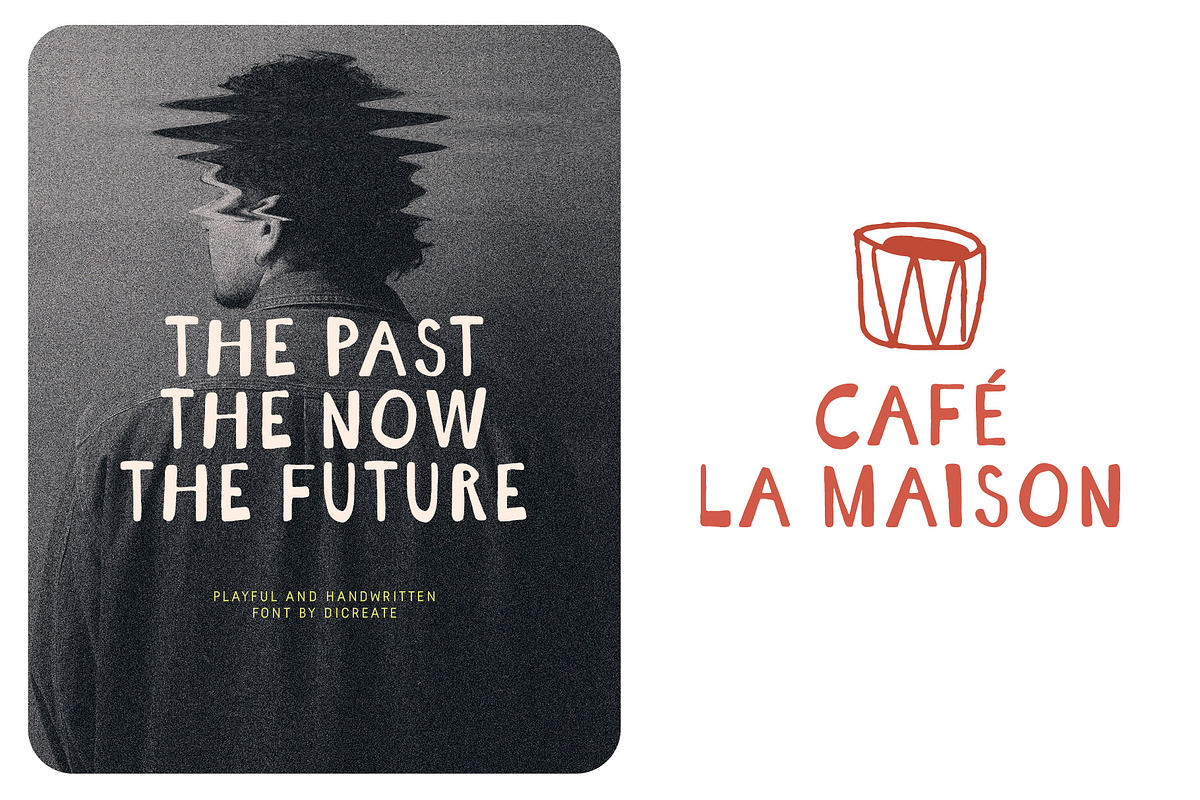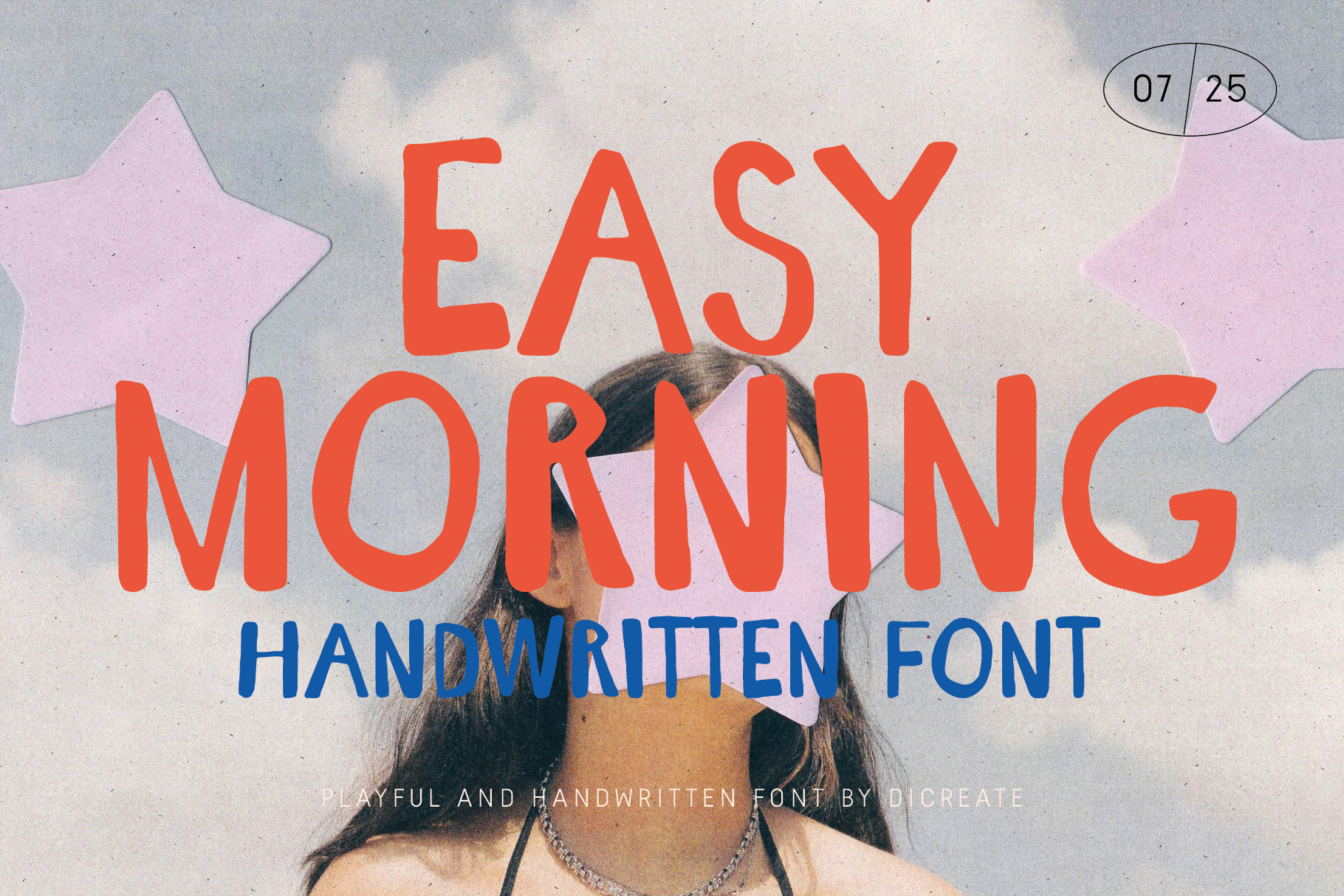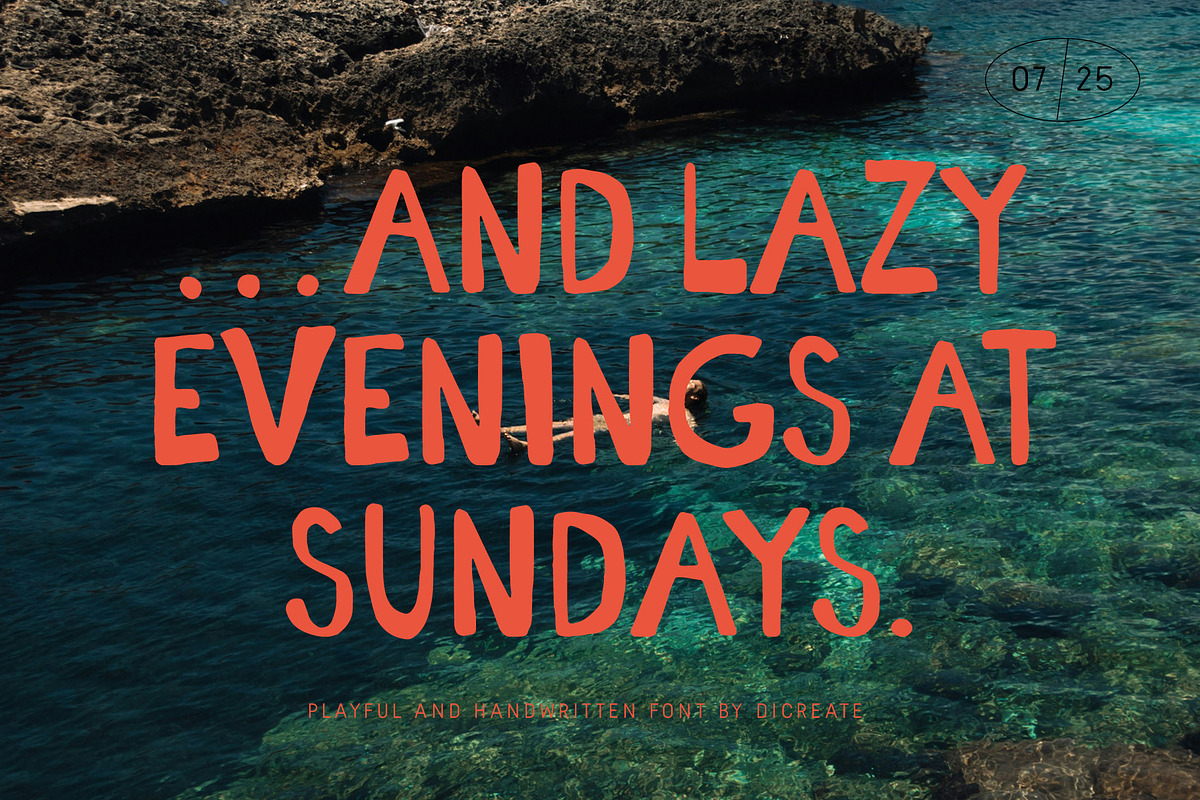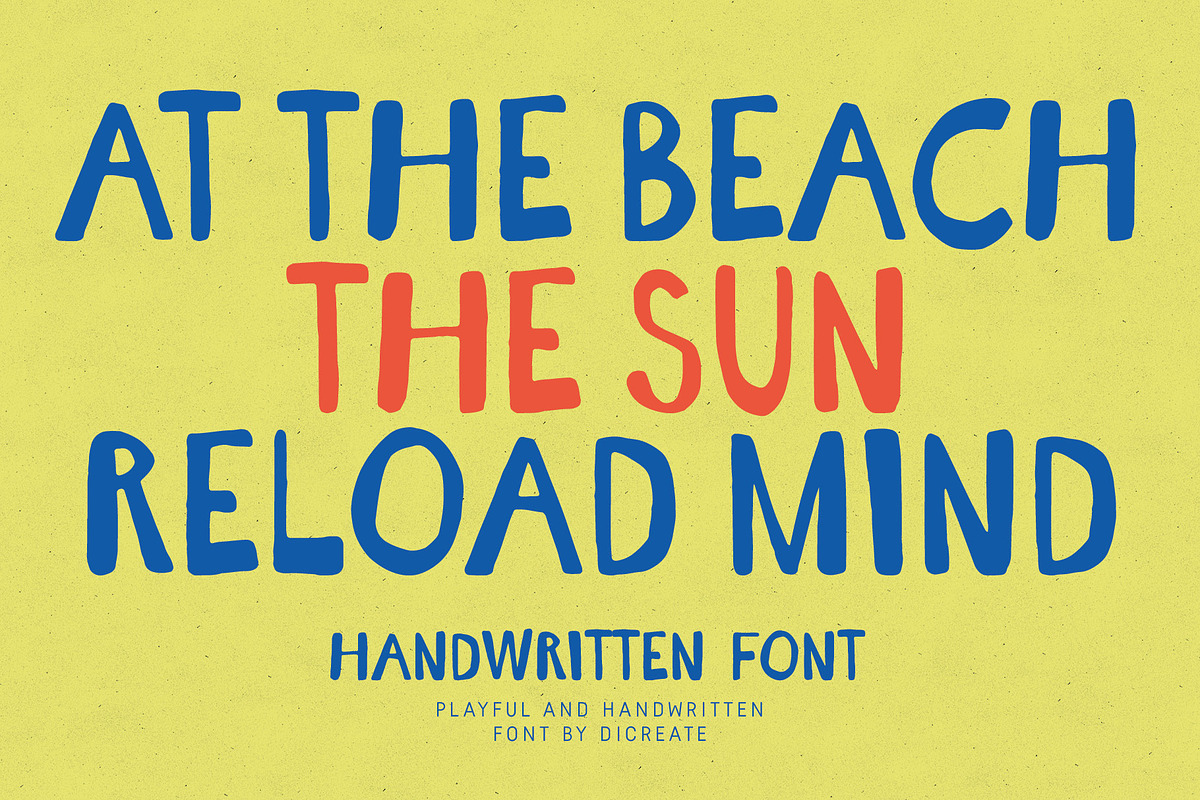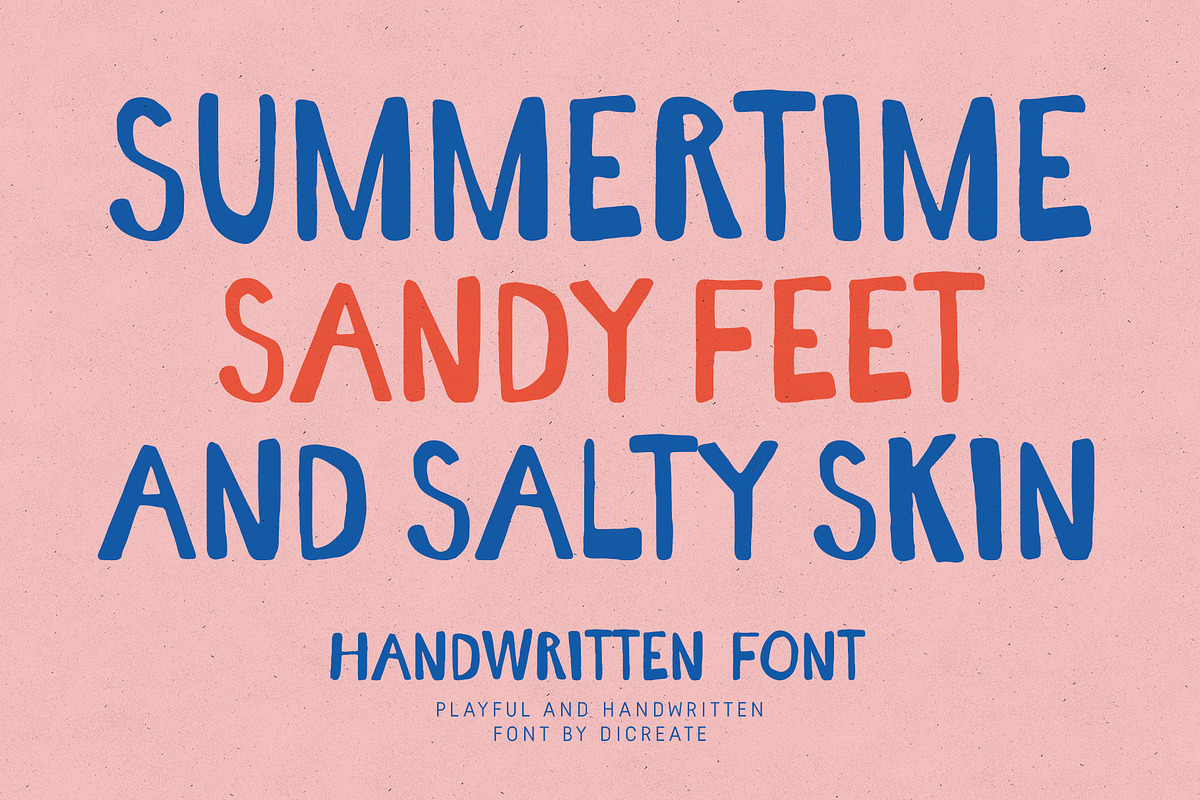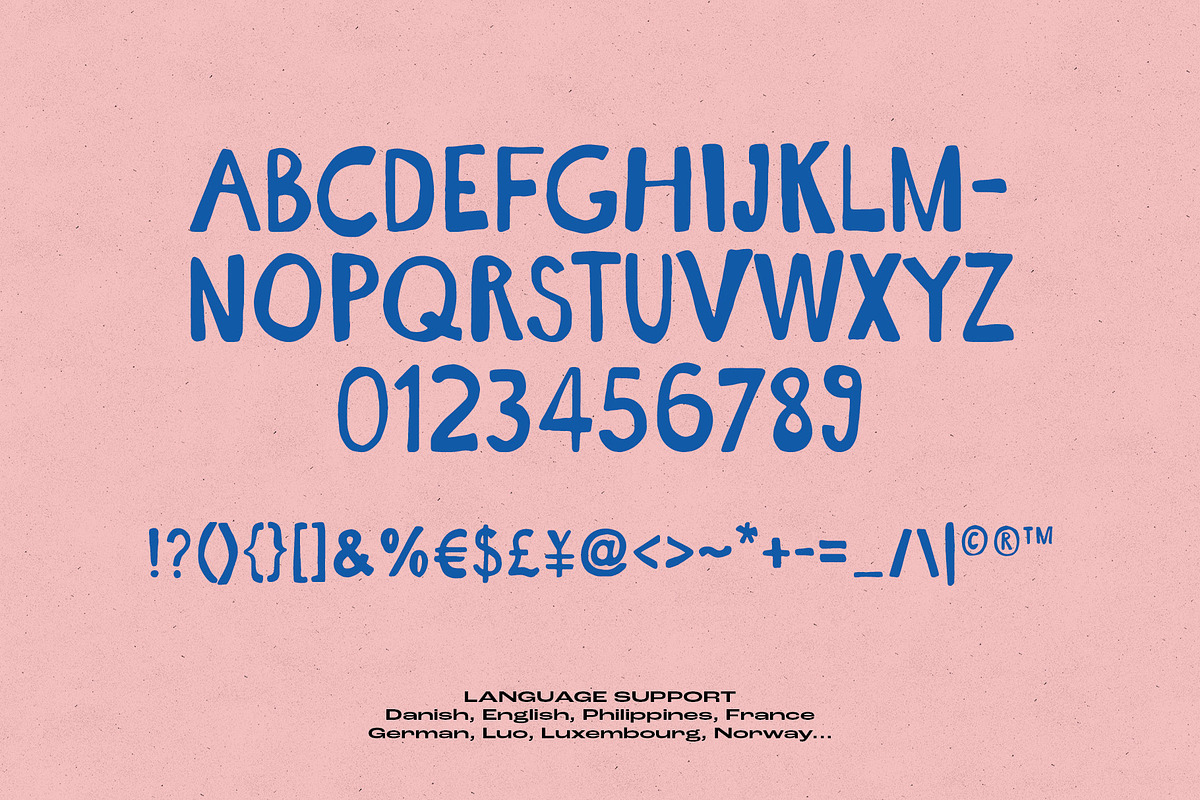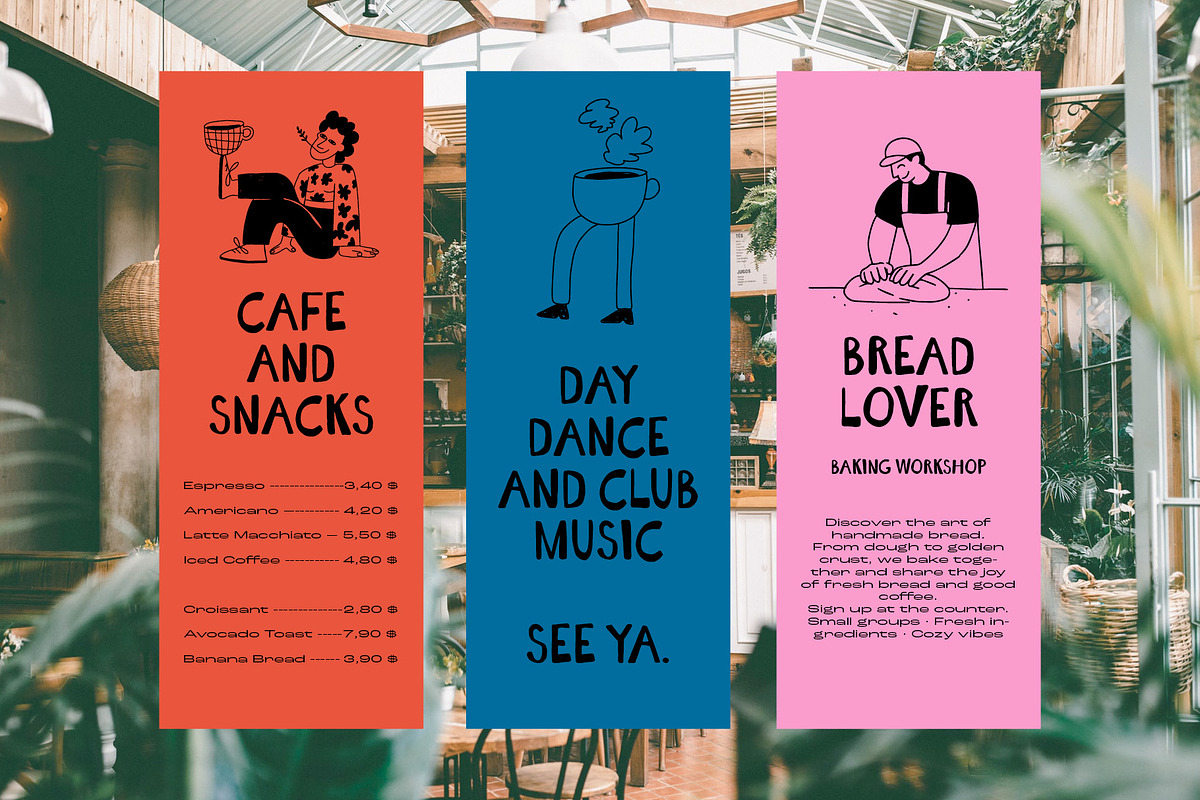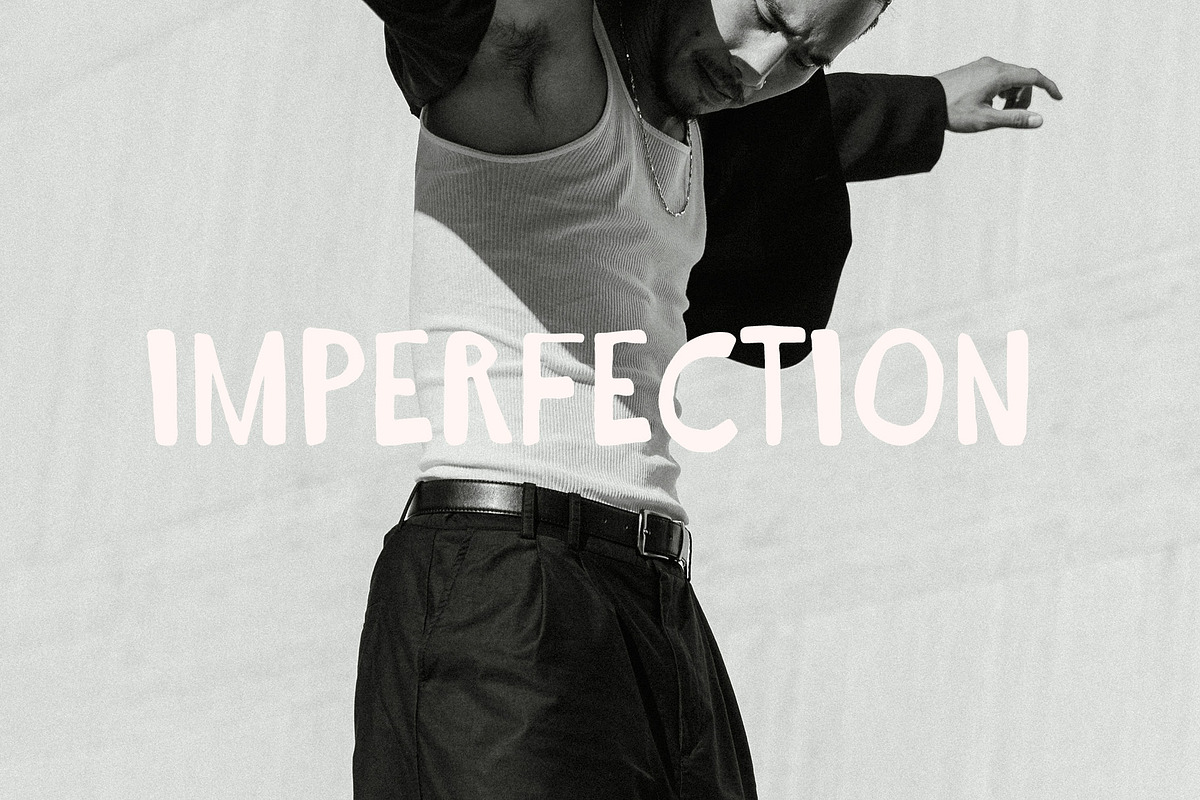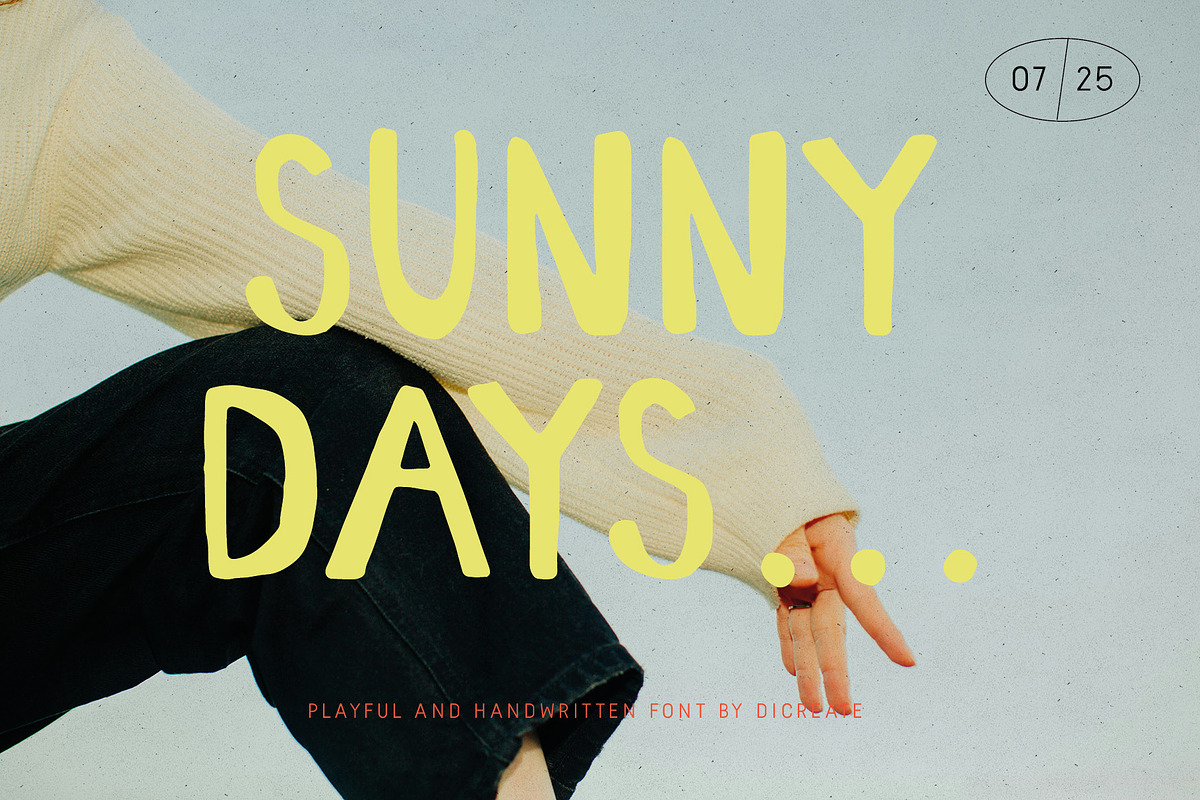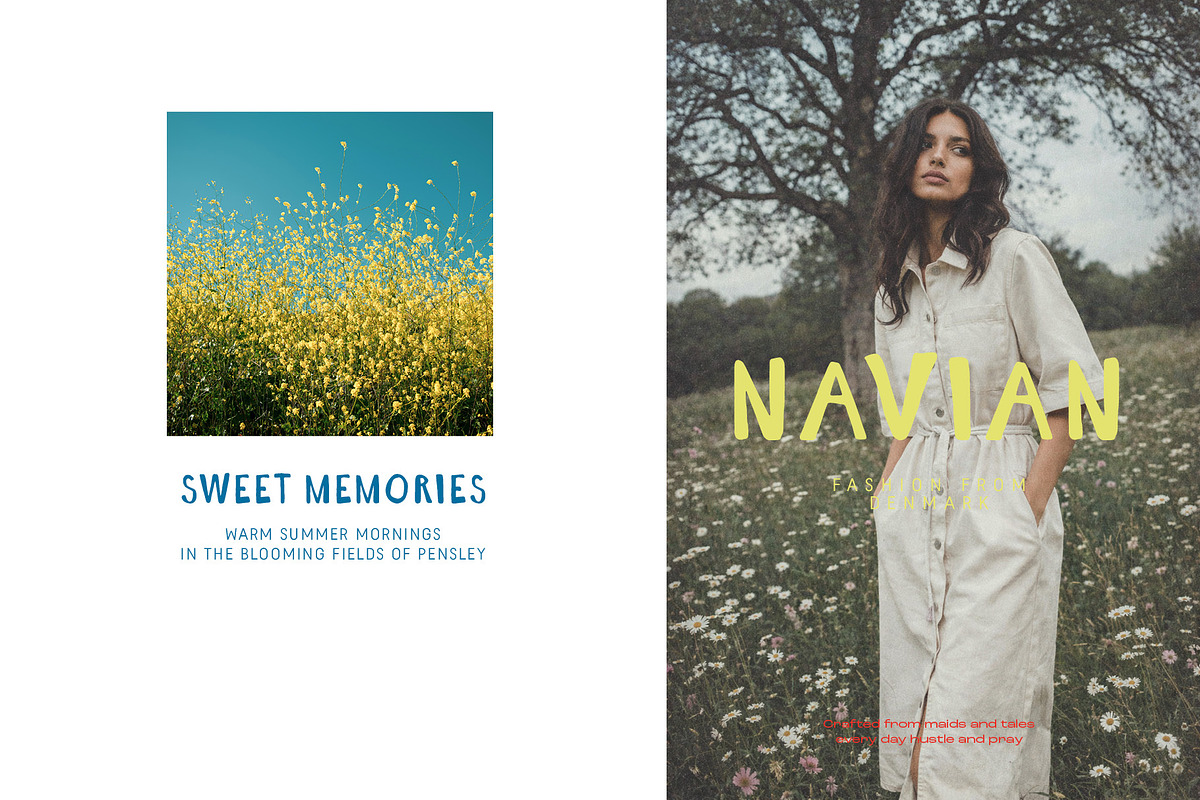
Easy Morning. Handwritten Font
Easy Morning is a playful and modern handwritten display font with a bold and relaxed personality. All playful characters are drew by hand.
Designed to bring warmth and human character to your projects, this font works beautifully for branding, posters, packaging, social media, café menus, summer campaigns and creative layouts.
With its slightly imperfect shapes and natural handwritten feel, Easy Morning adds a human and approachable touch while staying clean and highly readable.
- Uppercase letters
Easy Morning is ideal for designers looking for a friendly, modern and expressive display font that stands out while staying versatile.